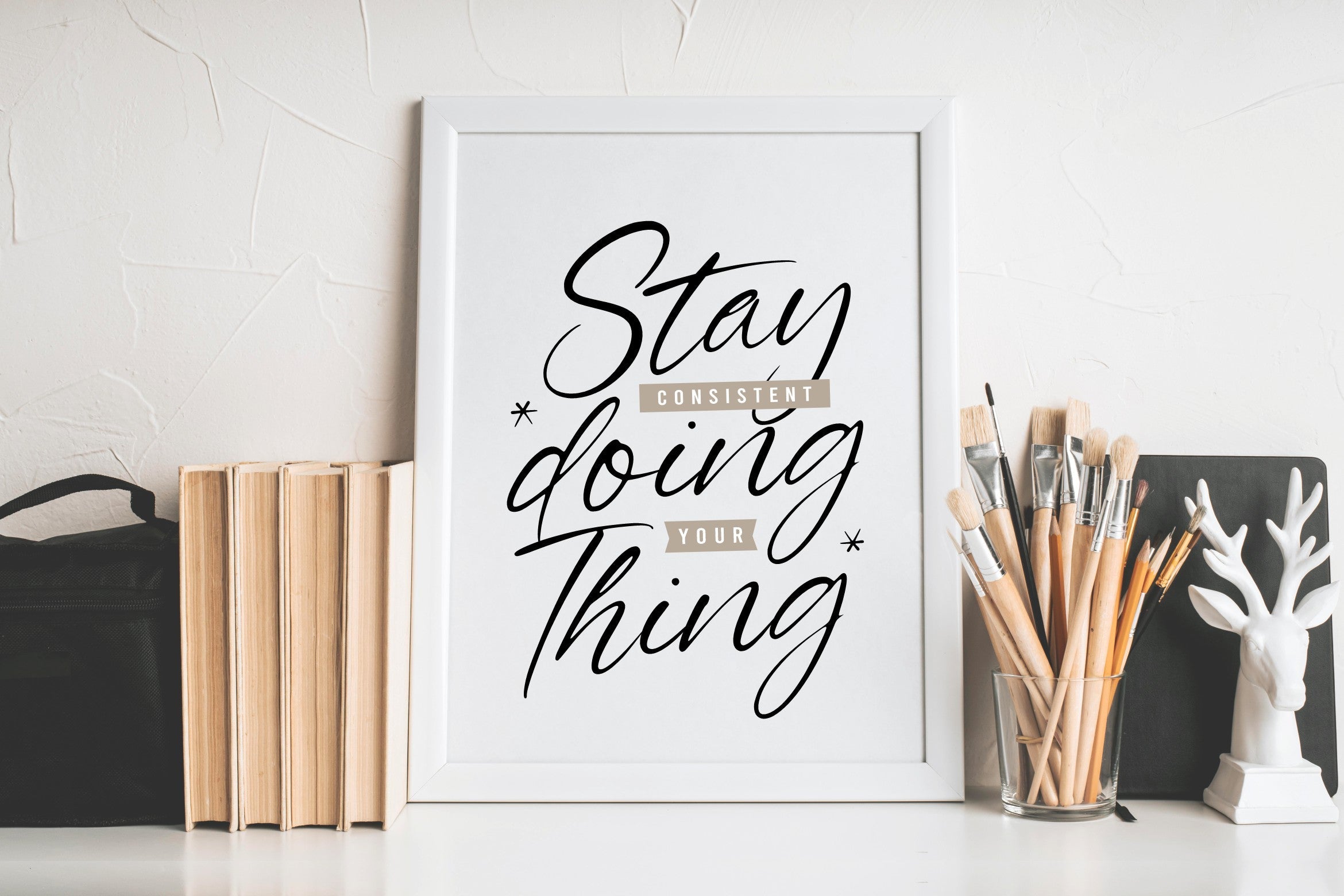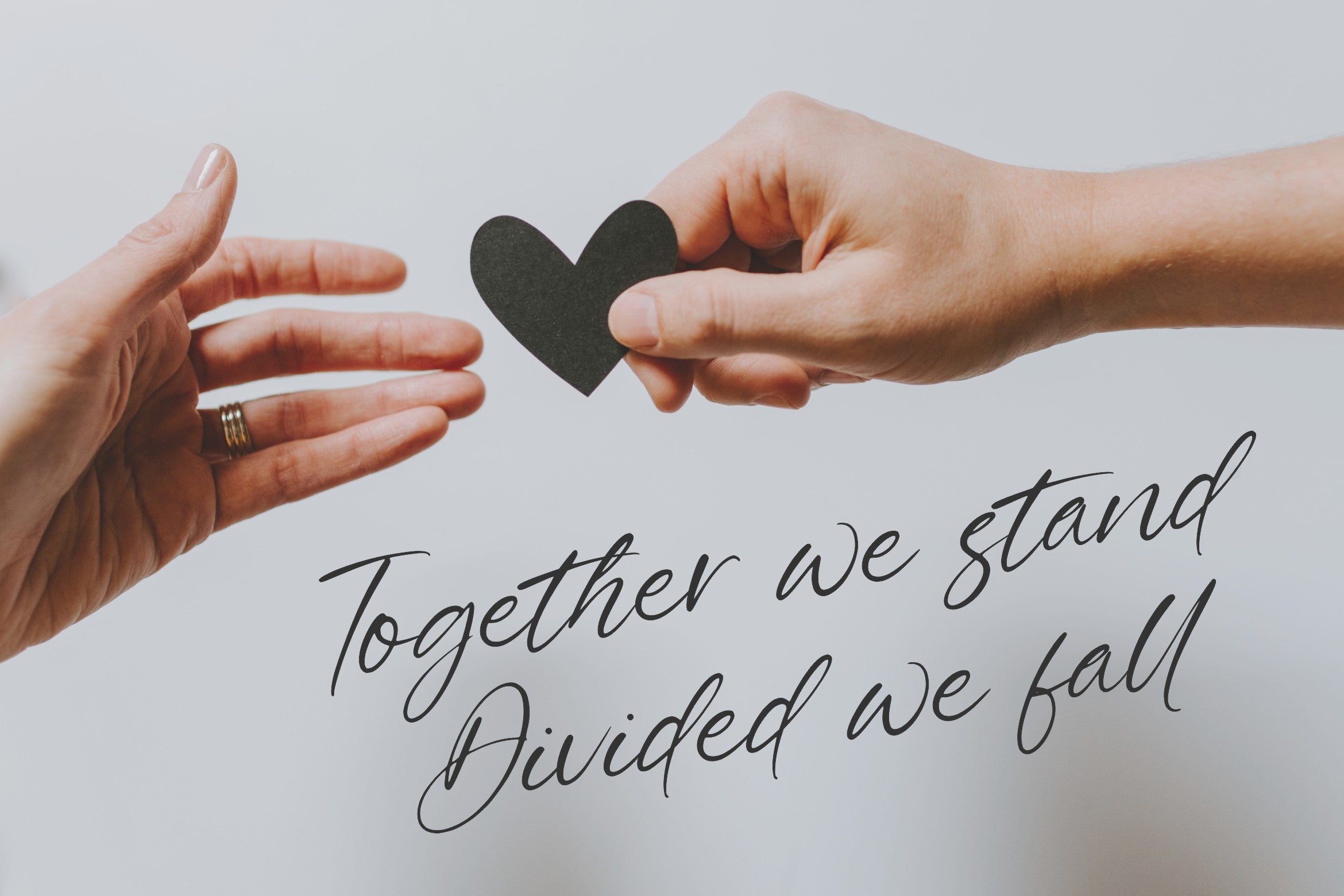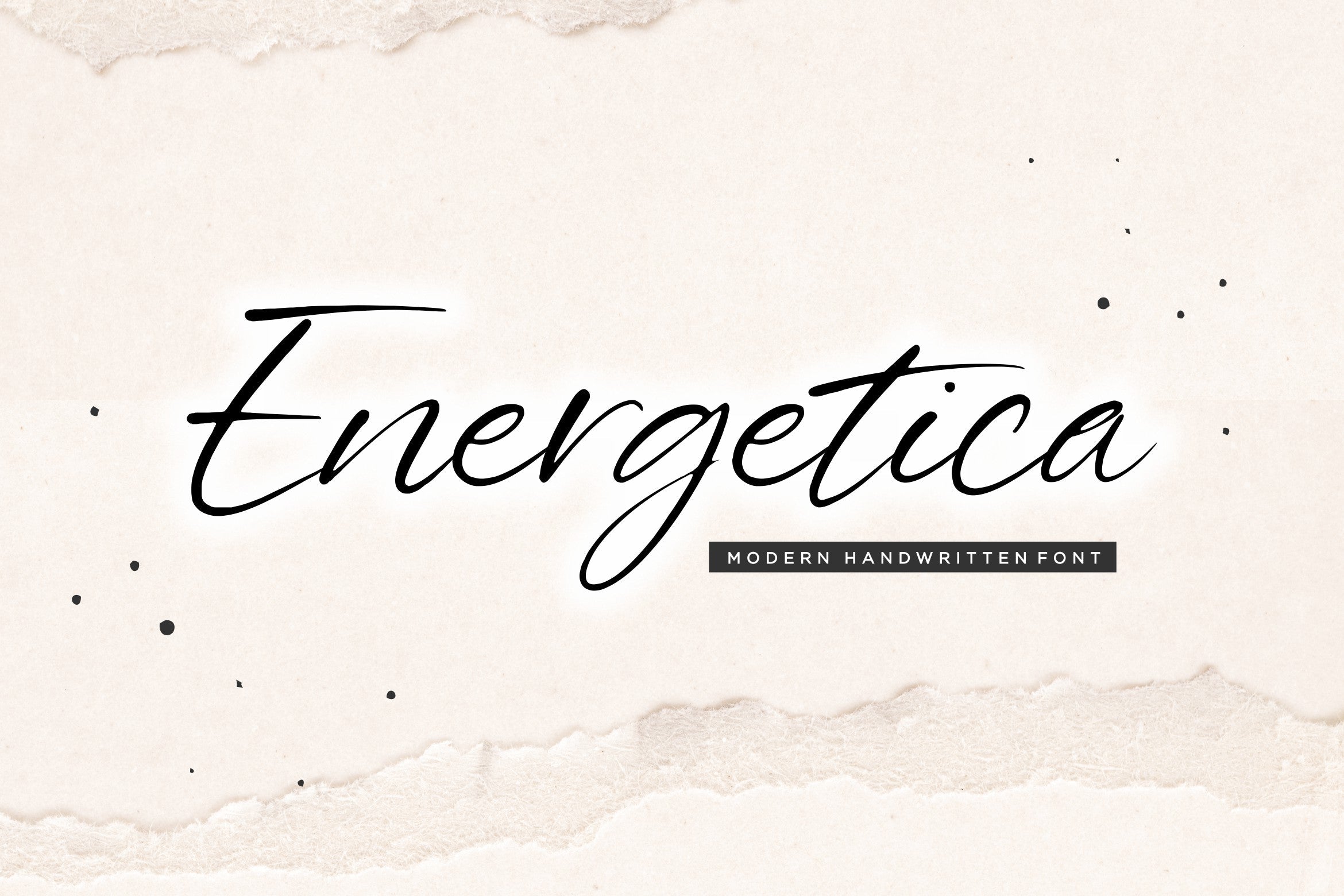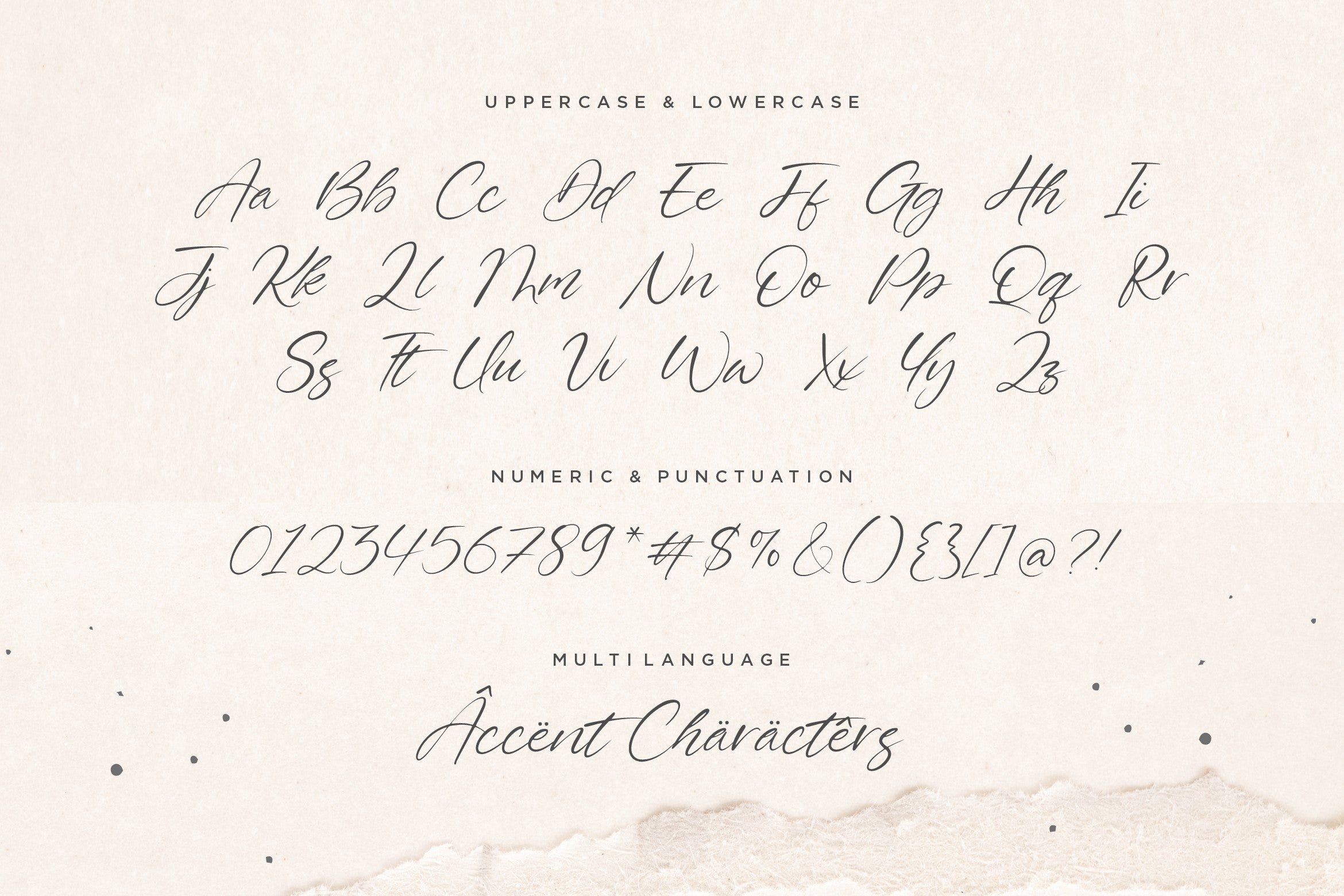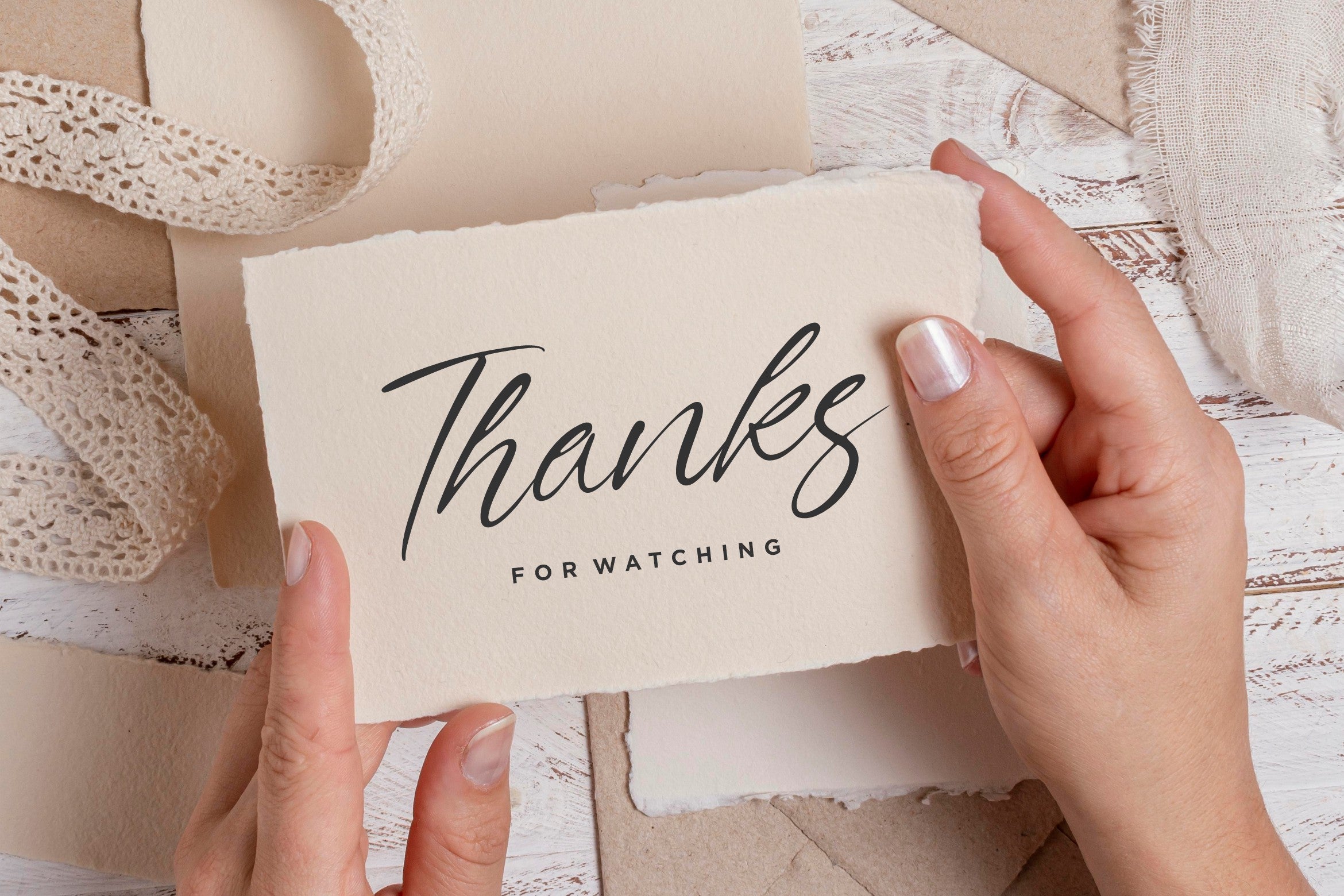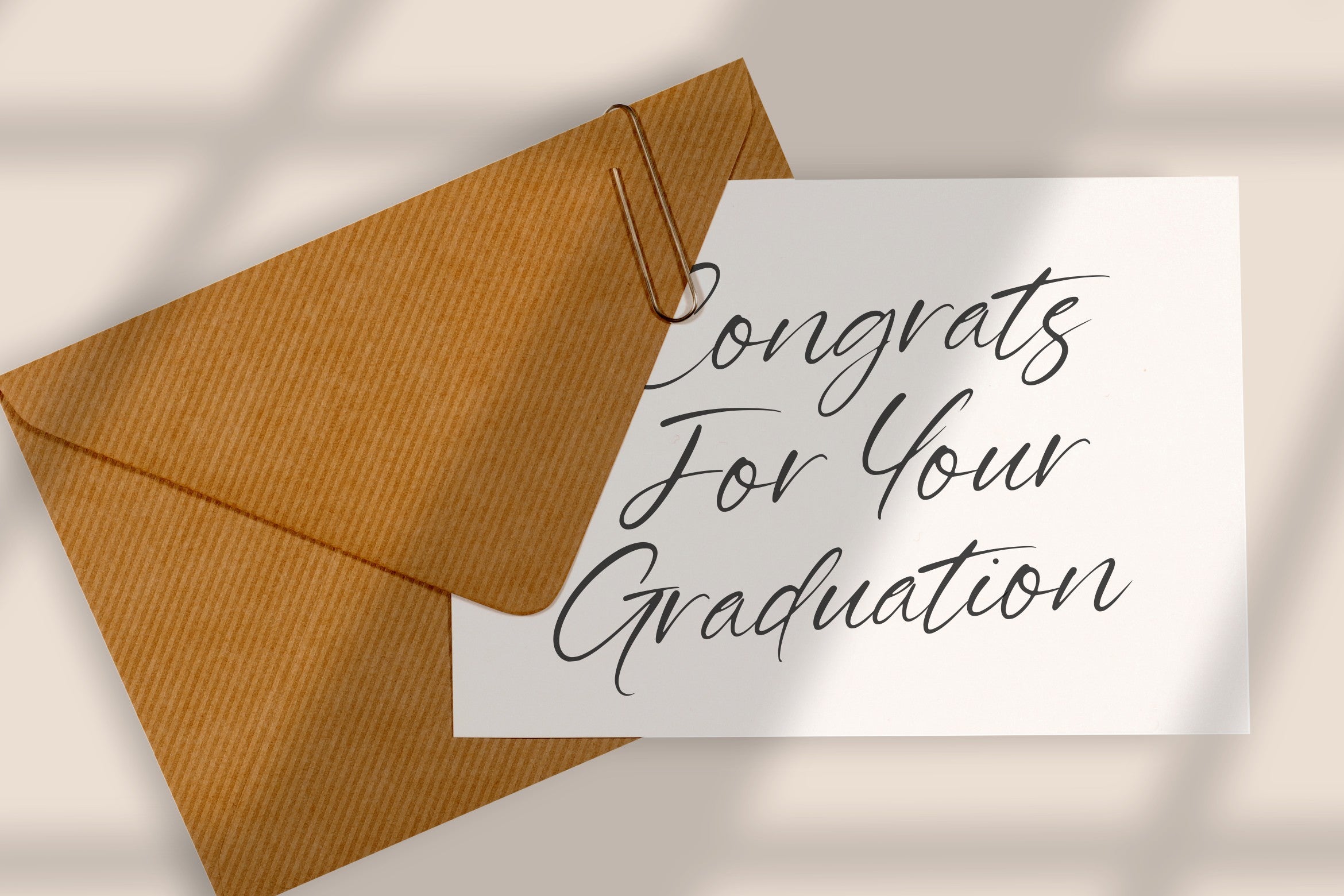
Energetica Modern Handwritten Font
About Energetica Modern Handwritten Font
Introducing by Balpirick Studio. Proudly Present, Energetica Font. Energetica is a Modern Handwritten Font. Energetica is a delicate, elegant and flowing handwritten font. It has beautiful and well balanced characters and as a result, it matches a wide pool of designs. Add it to your most creative ideas and notice how it makes them come alive! This font includes TTF, OTF and WOFF, Energetica also multilingual support. Enjoy the font, feel free to comment or feedback, send me PM or email. Thank you!